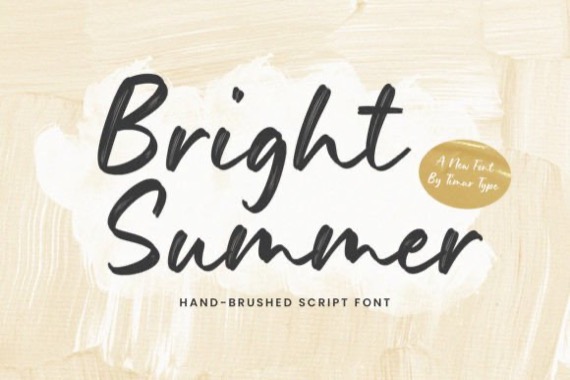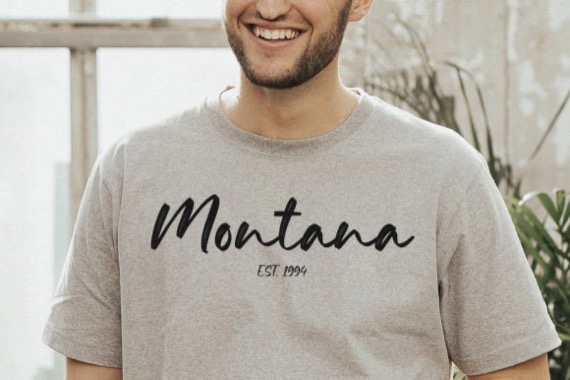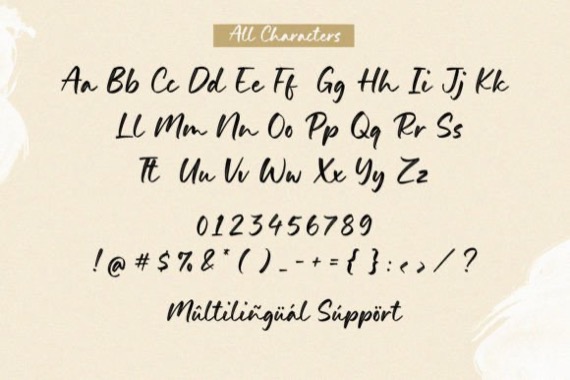
Bright Summer is a modern brush handwritten script font with cute and beautiful curves. Bright Summer is perfect for product packaging, branding project, magazines, social media, weddings, or just used to express words above the background.
Bright Summer Handbrush Font